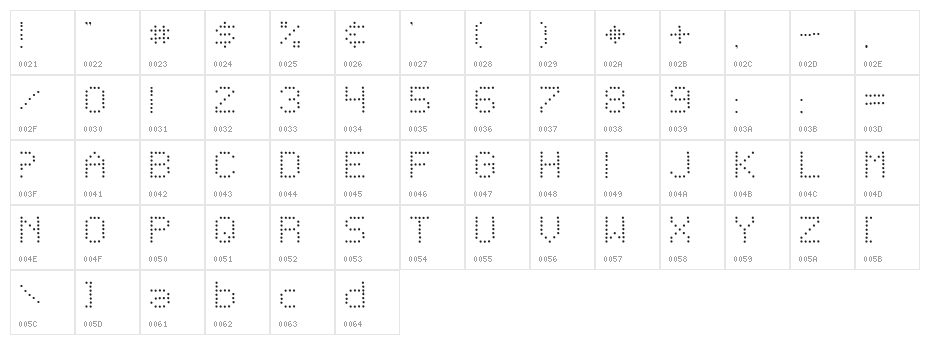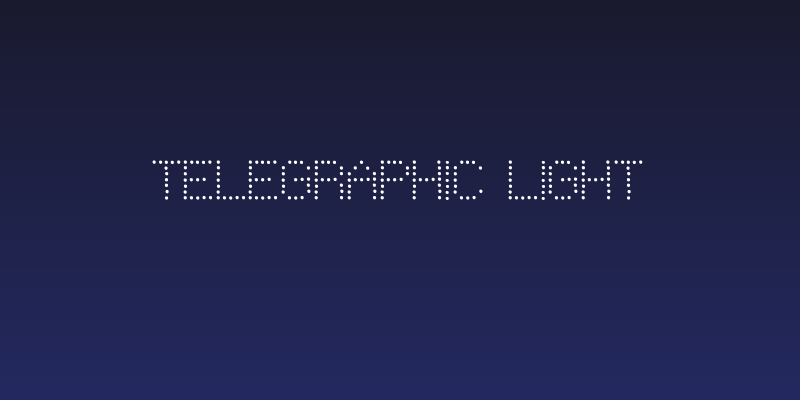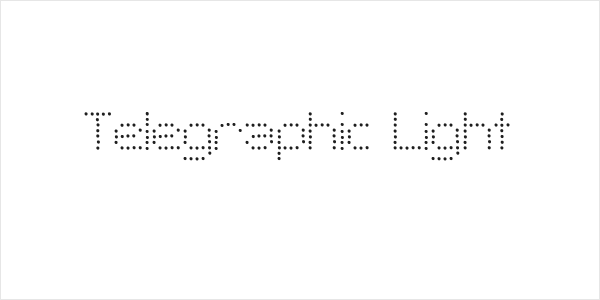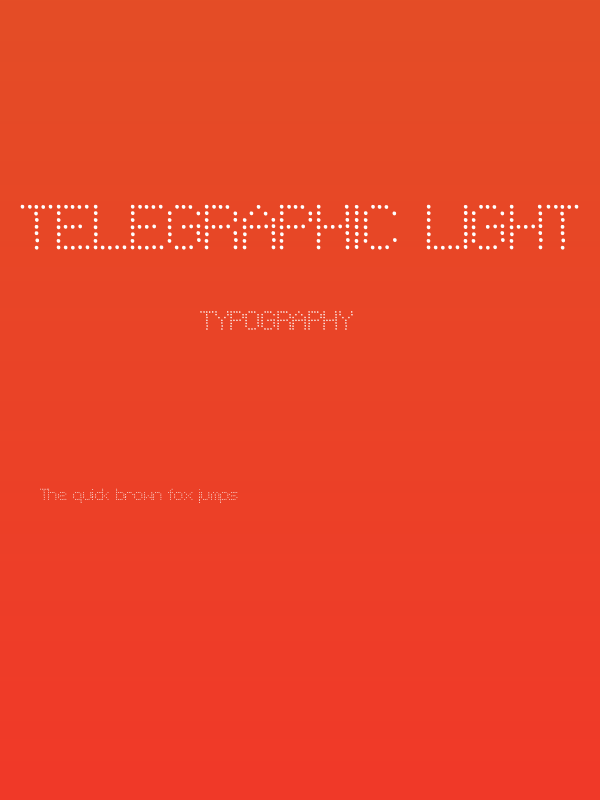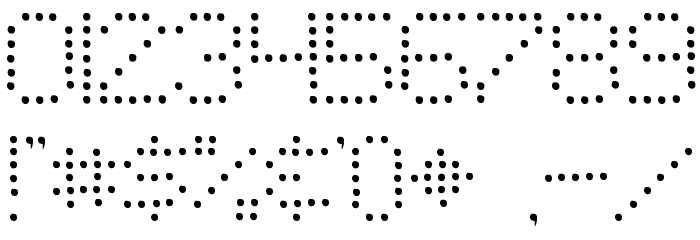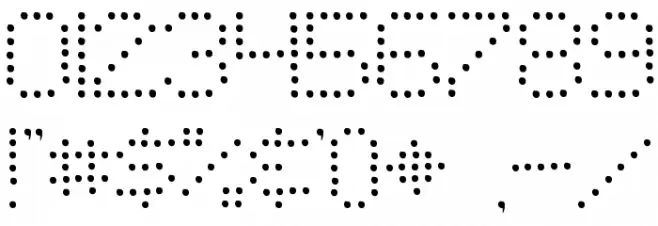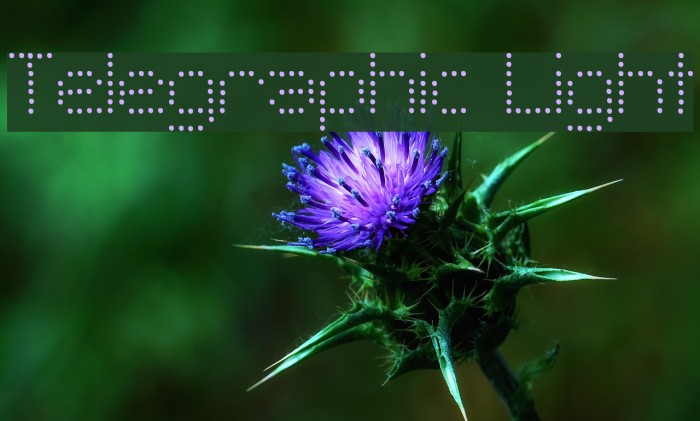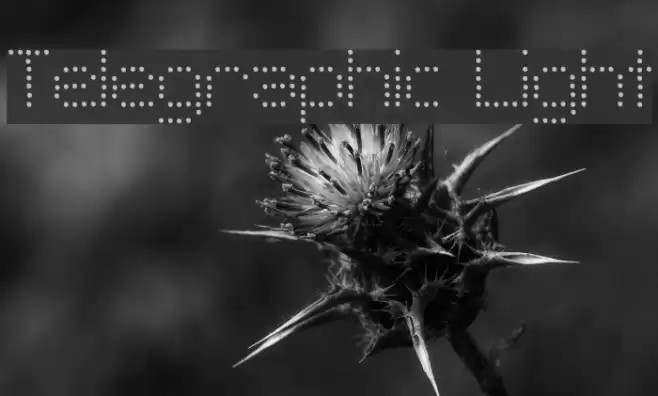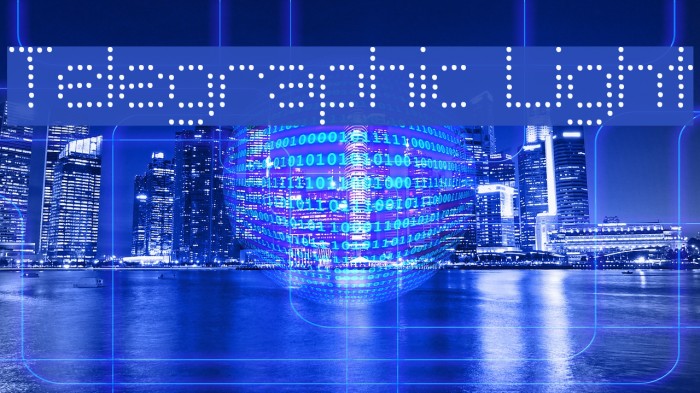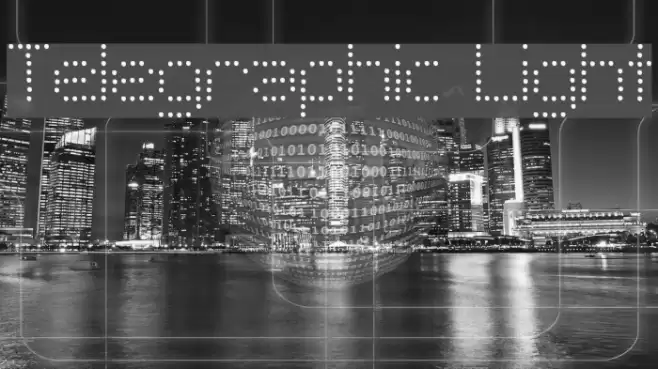
Telegraphic Light Font
✎ Dotted
| Gesamtstil | Retro, Modern |
| Anwendungsfall | Headlines, Logos, Creative projects |
| Vorgeschlagene Projekte | Ideal for tech-themed designs, retro posters, digital art, and creative projects requiring a vintage digital look. |